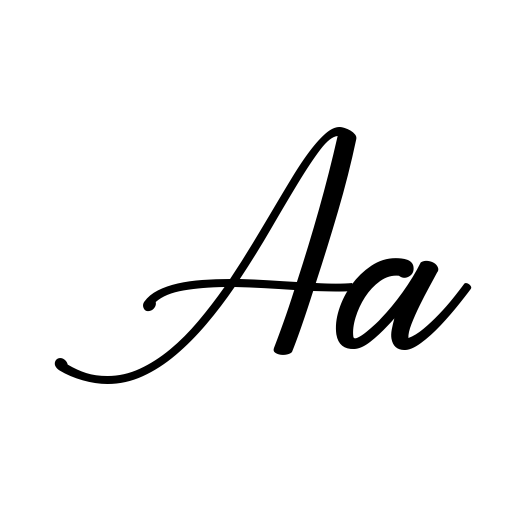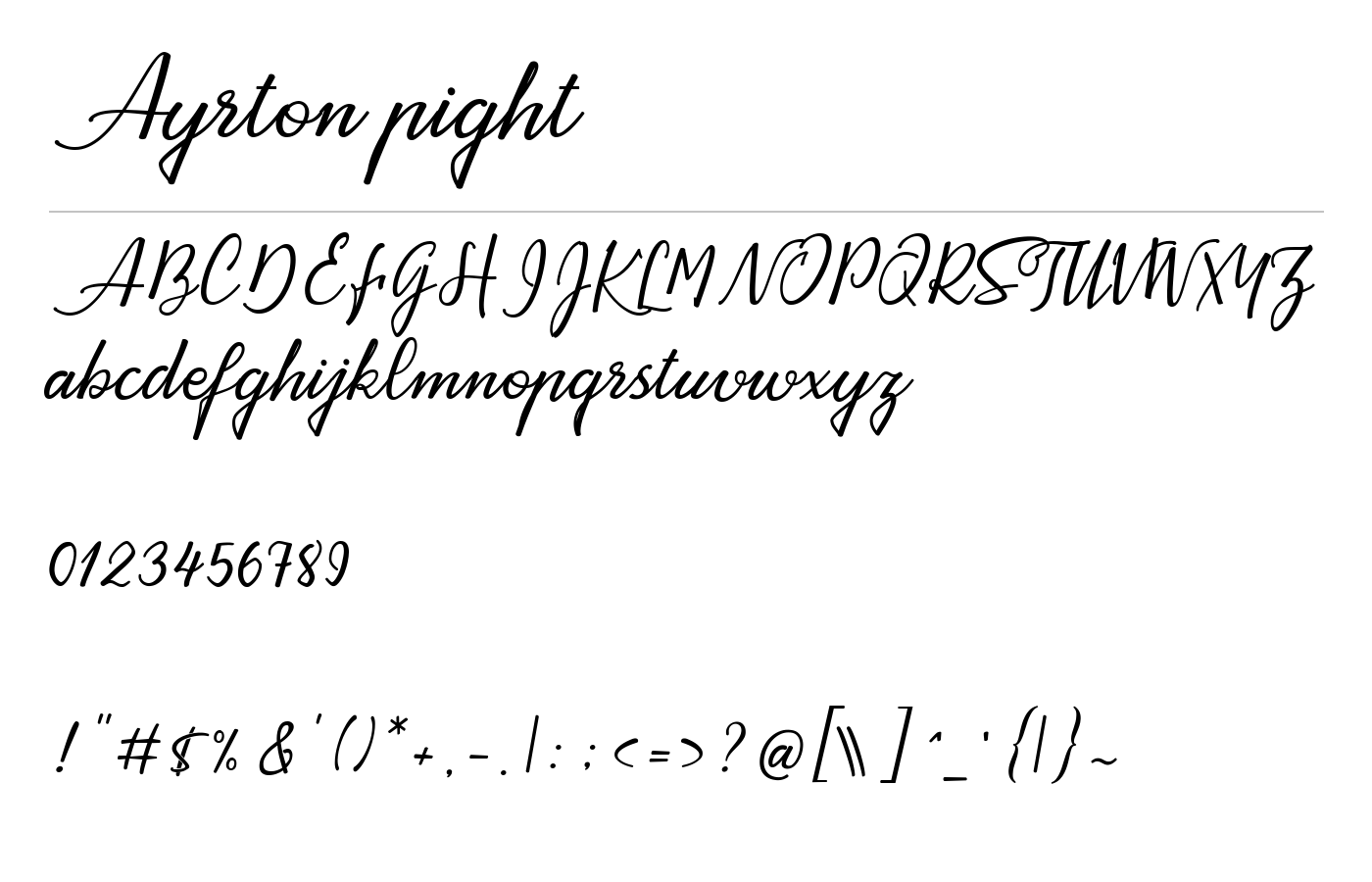
Ayrton pight is an elegant script font with a flowing, handwritten style that offers a refined, personal touch. Its thin strokes and smooth curves create a graceful, sophisticated appearance perfect for invitations, branding, or fashion-related projects. This font works well in settings where a stylish and intimate mood is desired, adding charm with its classic yet modern flair.
Ayrton pight Font
About Ayrton pight Font
| Font family | Ayrton pight Font |
| Designer | Attract Studio |